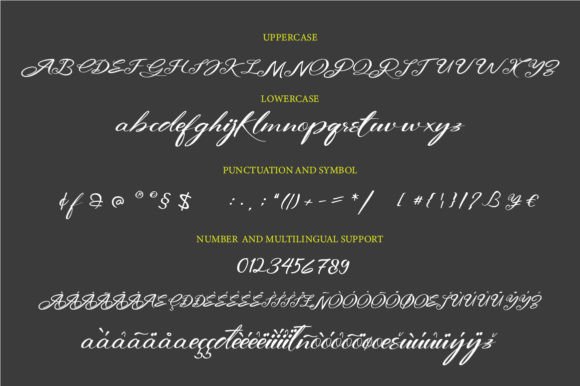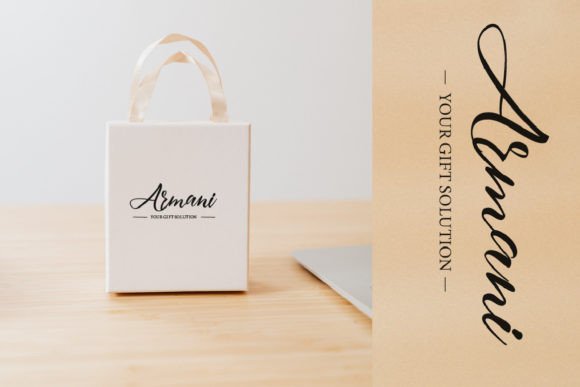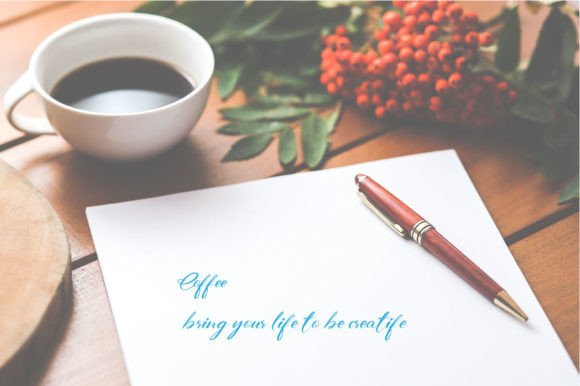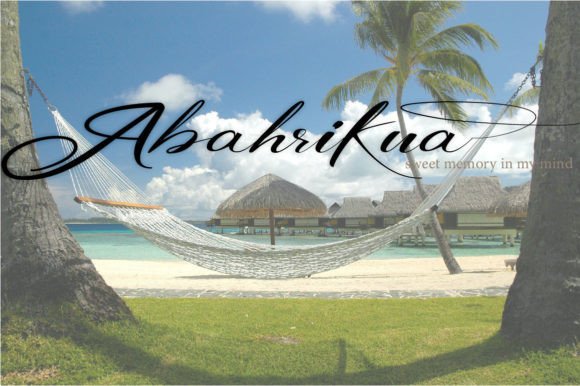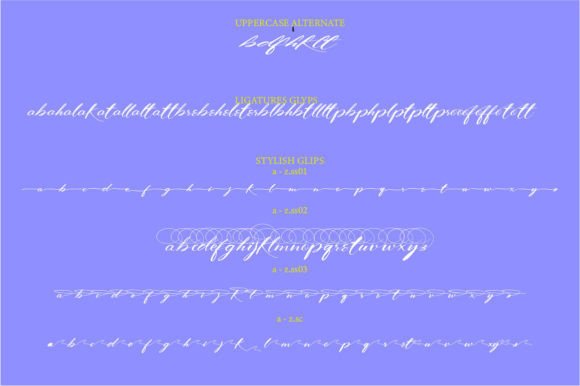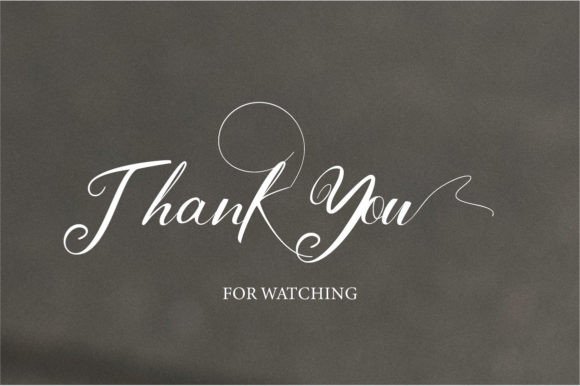
Introducing Asmaraloka Font: Elevate Your Designs with Elegance and Sophistication
In the world of typography, a font can make all the difference in transforming a design from ordinary to extraordinary. For designers and crafters seeking to infuse their projects with a touch of elegance and sophistication, the Asmaraloka font is an exceptional choice. This exquisite script font, with its signature lettering chic and intricate accents, is poised to become a staple in your font collection.
The Essence of Asmaraloka Font
Asmaraloka font is a masterpiece of typographic design, crafted to bring a sense of luxury and refinement to various design projects. Its signature script style is characterized by exquisite accents that add a touch of uniqueness to any text. Whether you’re working on branding materials, wedding invitations, invitation cards, logotypes, or any other creative project, Asmaraloka font is the perfect companion to help you achieve your design goals.
Comprehensive Character Set
One of the standout features of the Asmaraloka font is its comprehensive character set. The font includes a full set of gorgeous uppercase and lowercase letters, numbers, and a large selection of punctuation marks & ligatures. This extensive character set provides designers with the flexibility to create a wide range of designs without limitations. Whether you’re crafting a simple yet elegant wedding invitation or a complex brand identity, Asmaraloka font has got you covered.
Effortless Access to Glyphs and Swashes
Asmaraloka font is designed with user-friendliness in mind. With this font, accessing all the amazing glyphs and swashes is effortless. This feature allows designers to experiment with different styles and variations, making it easier to find the perfect look for their projects. The ability to easily navigate and utilize the font’s extensive features makes the design process both enjoyable and efficient.
Special Features for Enhanced Creativity
What sets Asmaraloka font apart is its wealth of special features, including alternate glyphs and ligatures. These features provide designers with the tools to add a personal touch to their work, creating unique and captivating designs that stand out. The inclusion of alternate glyphs allows for variation and creativity, while ligatures add a touch of sophistication and fluidity to the text.
Applications of Asmaraloka Font
The versatility of Asmaraloka font makes it suitable for a myriad of design applications. Here are a few ideas to get you started:
- Branding: Create a memorable brand identity with a logo that exudes elegance and sophistication.
- Wedding Invitations: Make your wedding invitations truly special with a font that speaks to romance and luxury.
- Invitation Cards: Whether it’s a birthday, graduation, or any other celebration, Asmaraloka font can help you create stunning invitation cards.
- Logotype: Develop a logotype that captures the essence of your brand with a unique and captivating script.
In conclusion, the Asmaraloka font is a remarkable addition to any designer’s toolkit. Its exquisite script style, comprehensive character set, and special features like alternate glyphs and ligatures make it an ideal choice for creating stunning designs. Whether you’re a professional designer or a crafter, Asmaraloka font offers the perfect blend of elegance and versatility to elevate your projects to new heights. So, why wait? Dive into the world of Asmaraloka font and discover the endless possibilities it has to offer.